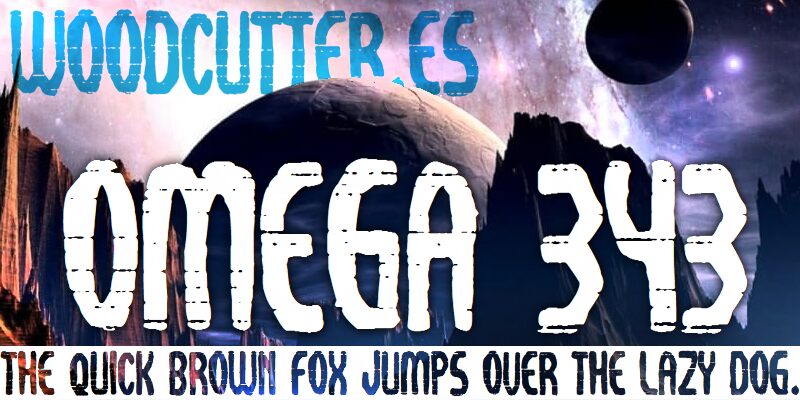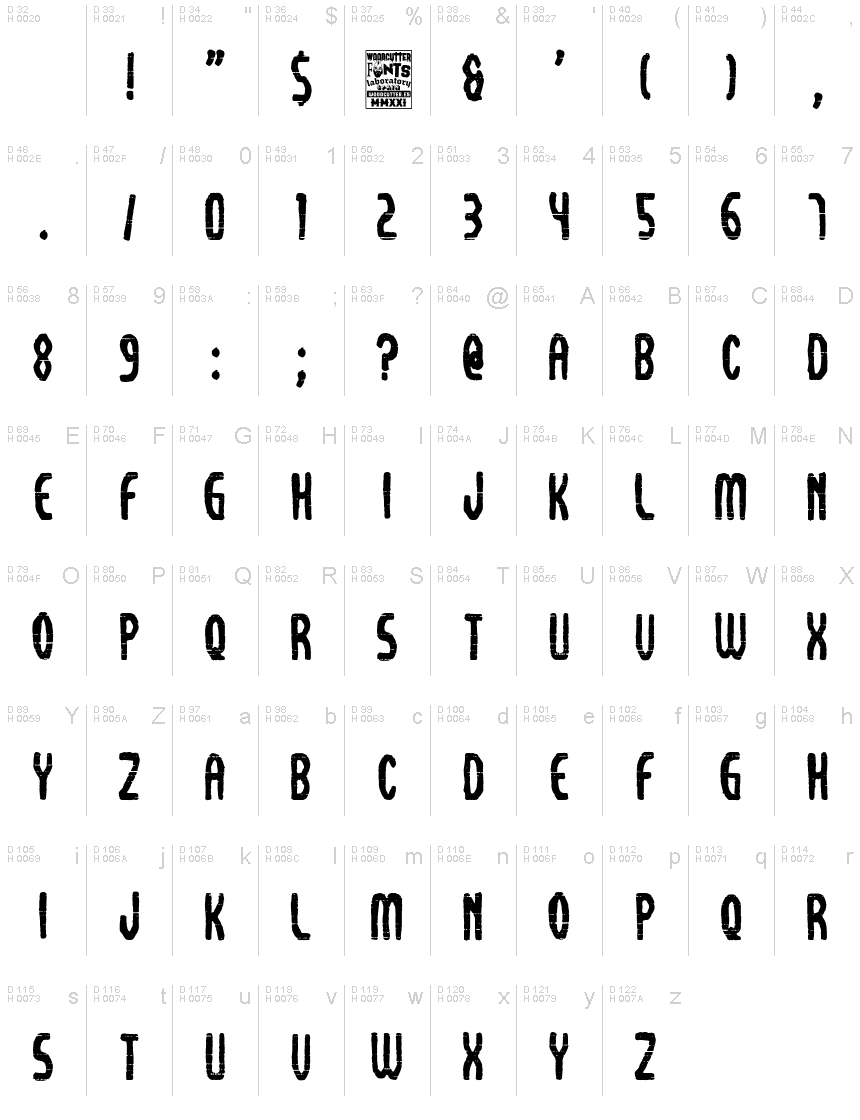
Omega 343
Discover the bold, rugged style of Omega 343 - the eroded display font designed by Woodcutter. With its extra-condensed width, this typeface demands attention and adds a touch of attitude to any project. Perfect for vintage or grunge designs, Omega 343 is ideal for branding, poster design, album covers and more. Its unique character ensures that your message will stand out from the crowd. Whether you're looking to evoke a sense of nostalgia or create something edgy and contemporary, Omega 343 is the perfect choice for designers who want to make their mark.